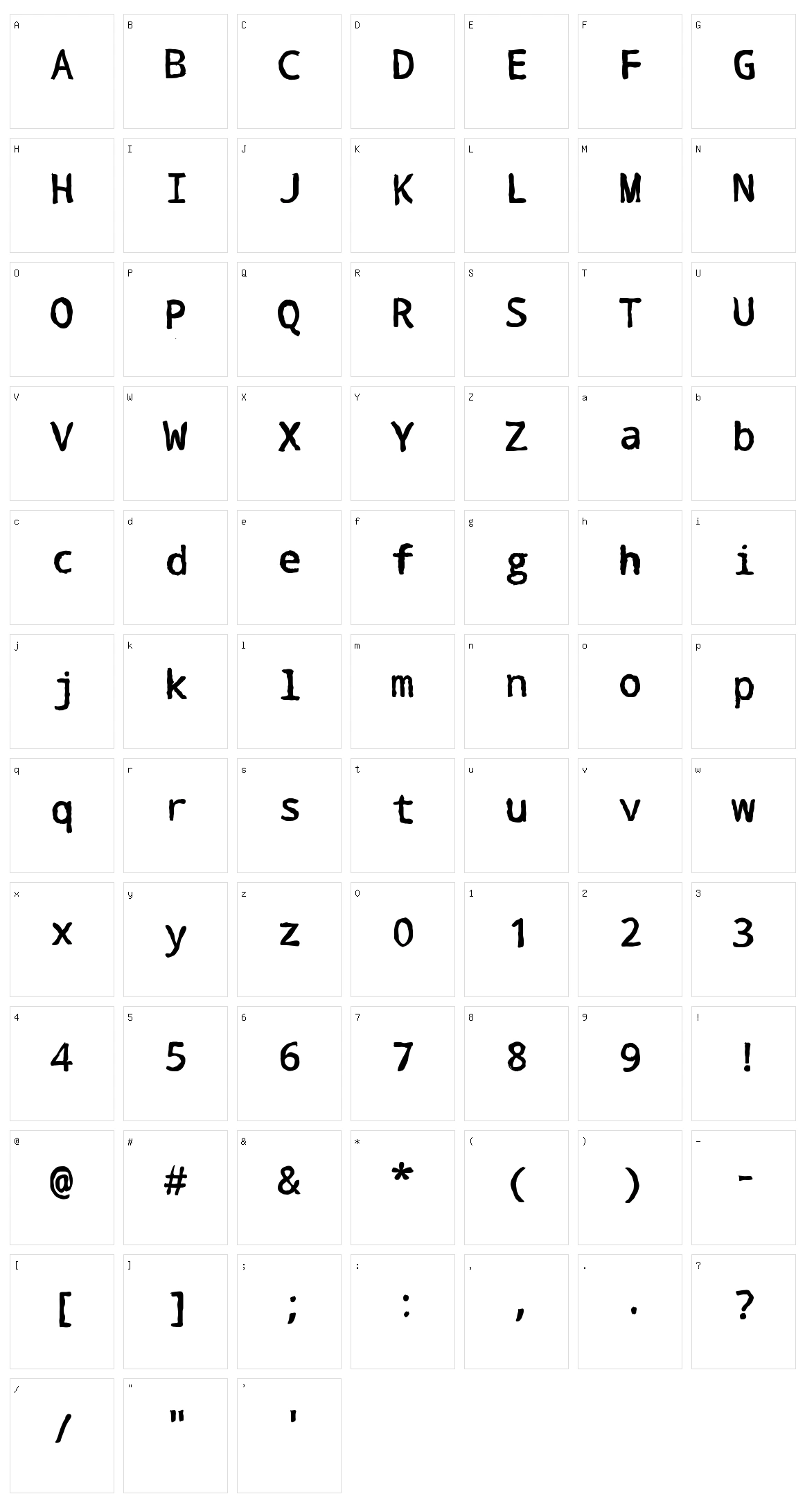
The free font Swiftfreewill is carefully designed by Swifty Font, showcasing a thoughtful balance of creativity and usability and falls under the Eroded font style. When you download the ZIP file, it contains only 31.14 KB of font files, making it lightweight and quick to download. Please review the license details below to understand permitted usage and distribution rights. If license information is not available, we recommend using this font for personal projects only or contacting the author directly for commercial usage permissions.